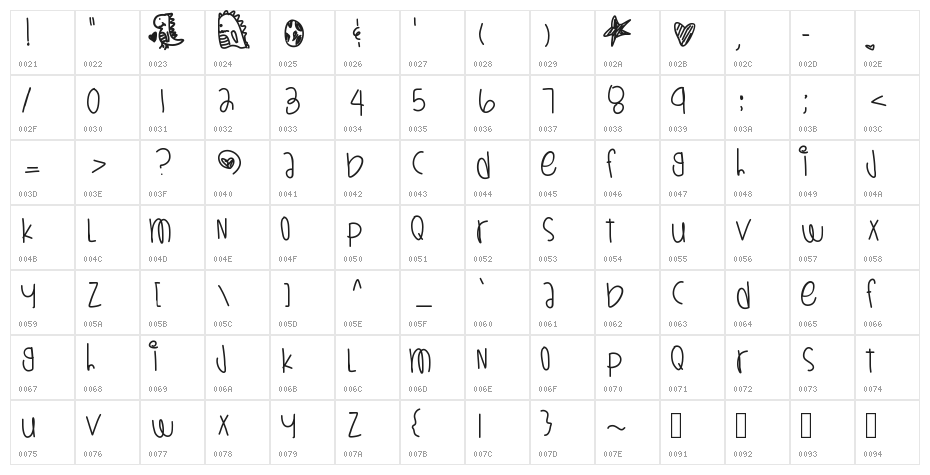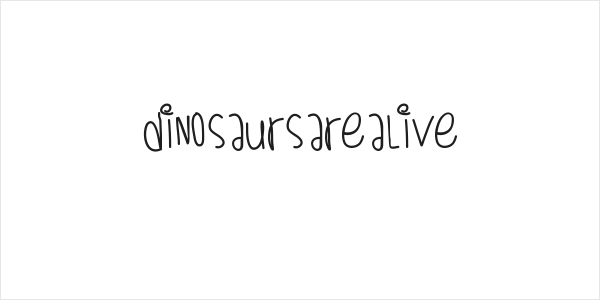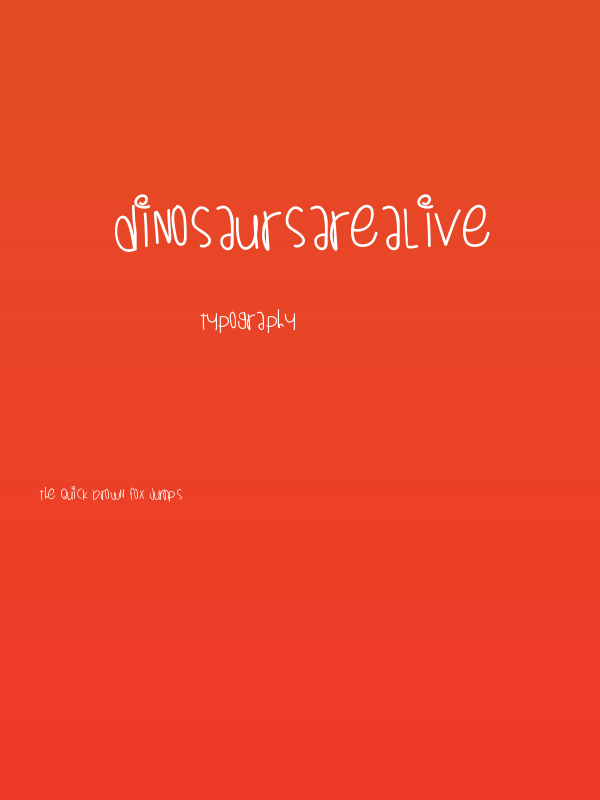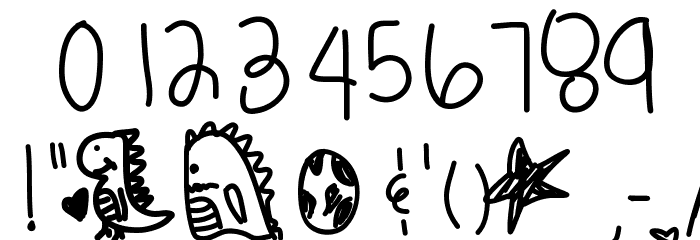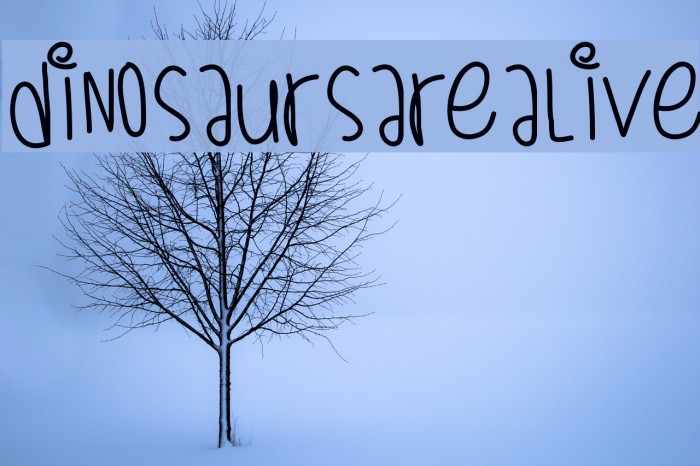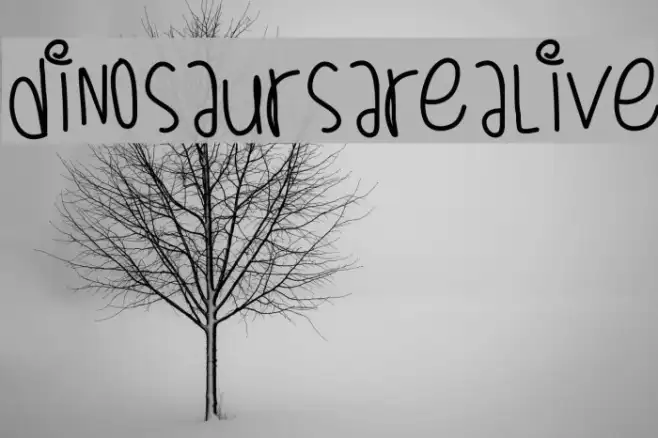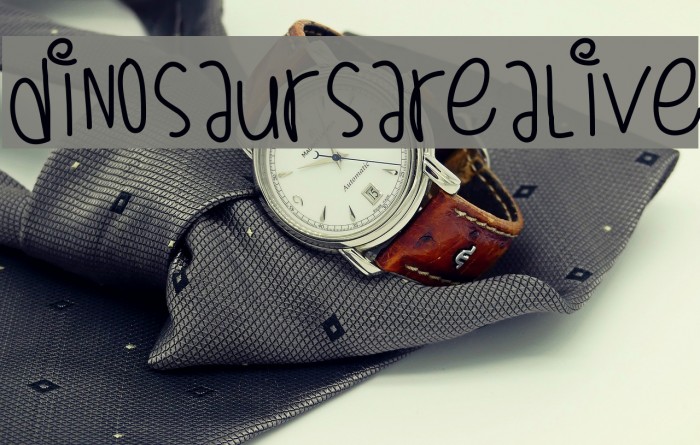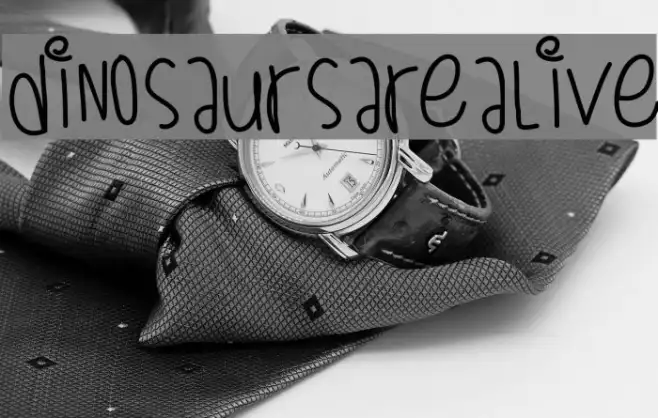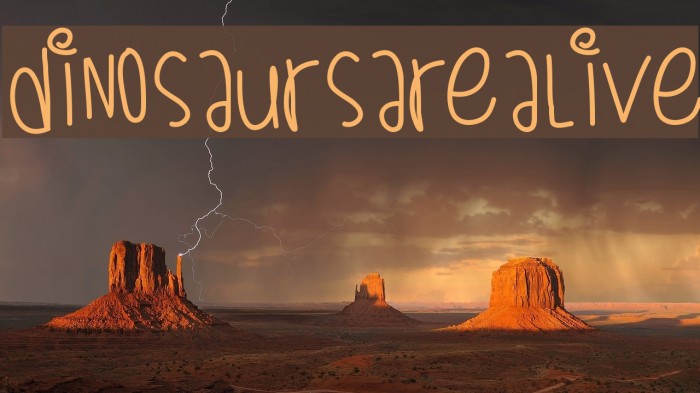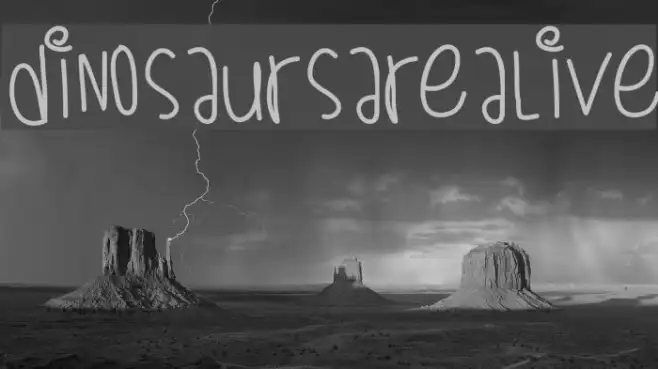
DinosaursAreAlive Font
DinosaursAreAlive Description
This playful and whimsical font features a handwritten style with a quirky and fun aesthetic. The characters are rounded and slightly irregular, giving them a lively and informal appearance. The uppercase and lowercase letters maintain a consistent style, with a smooth flow and a touch of childlike charm. The numbers are equally playful, matching the overall theme. Special characters include delightful dinosaur illustrations, adding a unique and creative element to the font. This font is perfect for projects that require a lighthearted and imaginative touch.
| Proposed Projects | Ideal for children's books, playful branding, educational materials, and creative invitations. |